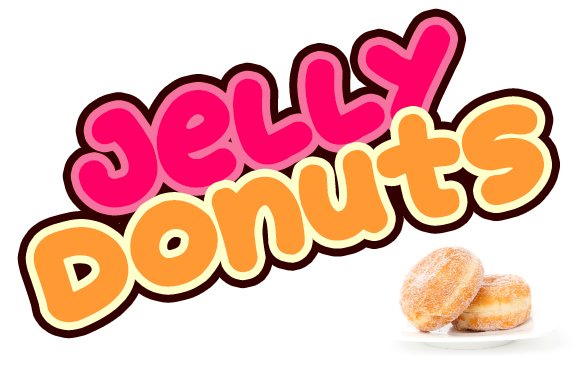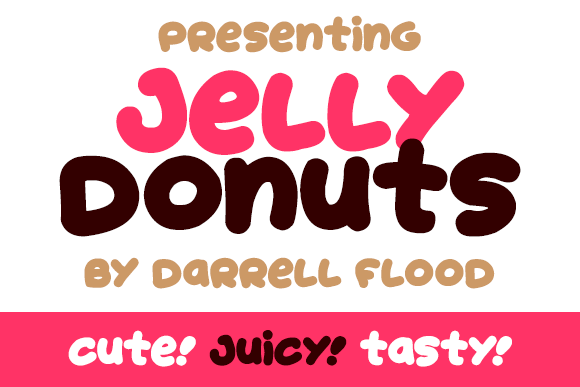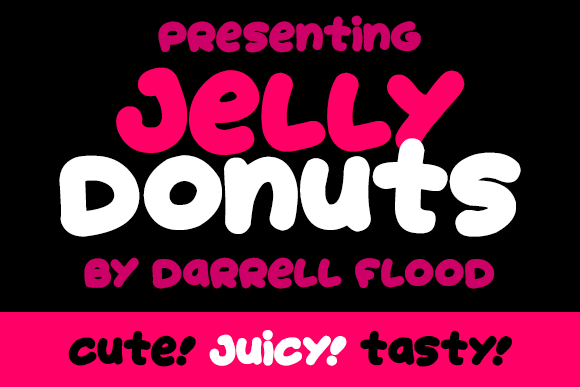
Jelly Donuts Font
Jelly Donuts Font is a cool and adaptable display font. This font is suitable for designs such as t-shirts, sportswear, posters, logos, advertisements, clothing, and more.
Jelly Donuts Font is a cool and adaptable display font. This font is suitable for designs such as t-shirts, sportswear, posters, logos, advertisements, clothing, and more. Whatever the topic, this font will be a great asset to your font collection, as it has the potential to enhance any creation.